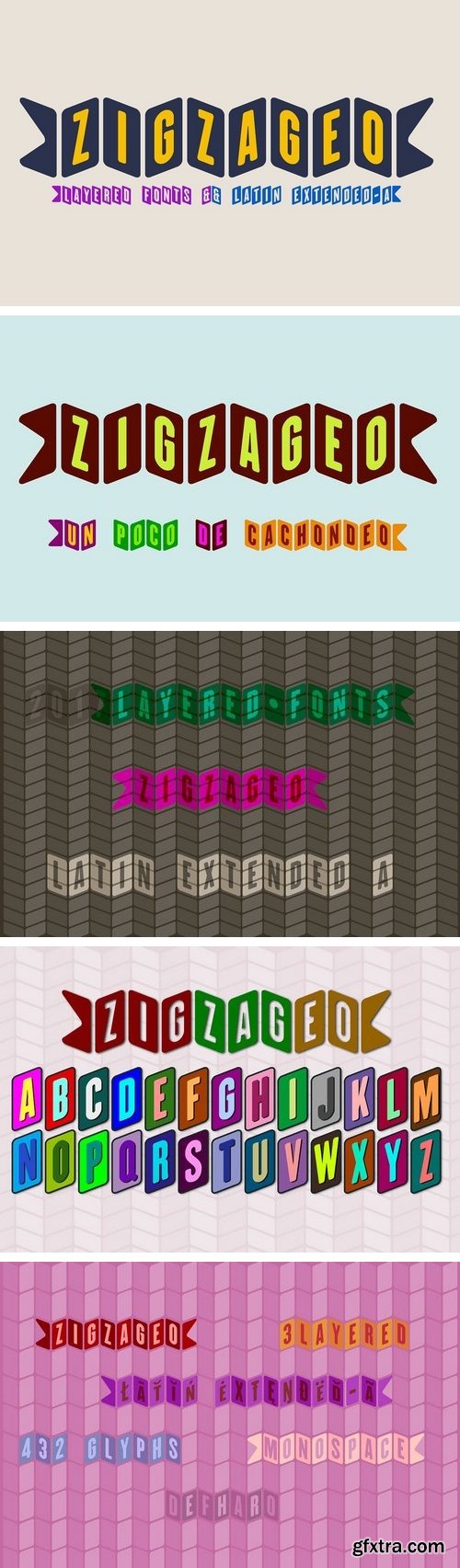
Zigzageo is a set of three display fonts type banner, combinable between them using layers, this feature allows you to create purely typographical multicolored titles. Also with the Zigzageo Back version you can create serrated borders and geometric backgrounds to complete your designs.